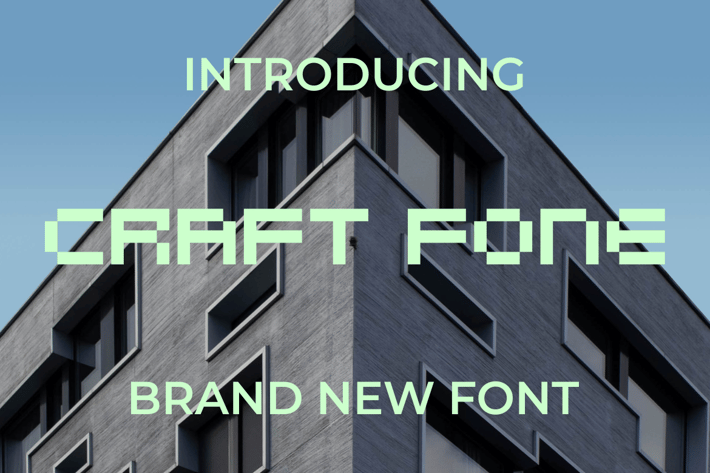
Craft Fone Font
Introducing our new product Craft Fone Font - Modern Font
Craft Fone Font - Modern Font is a bold and authentic display font. The font is suitable for any branding project like logo, t-shirt printing, esport, and many more. outstanding in a wide range of contexts.